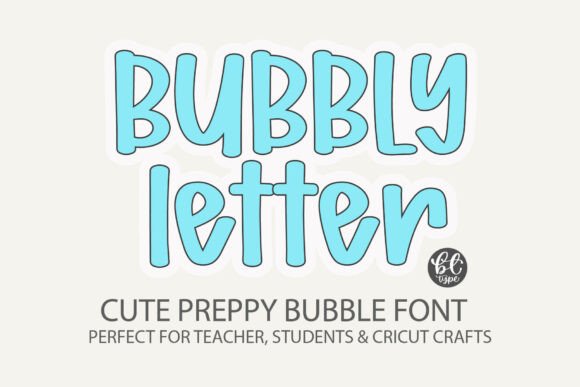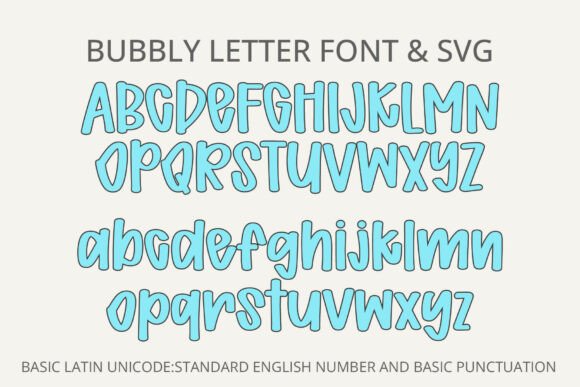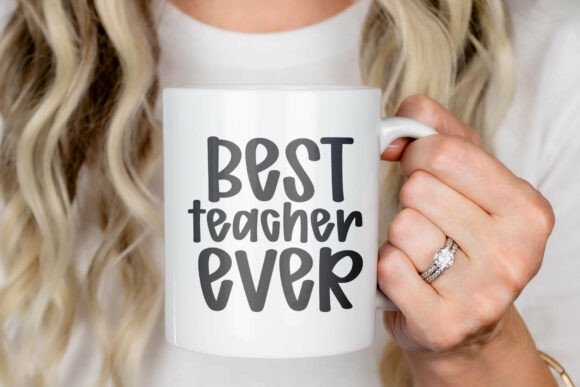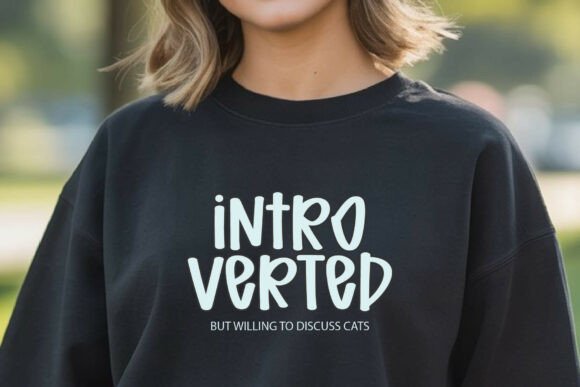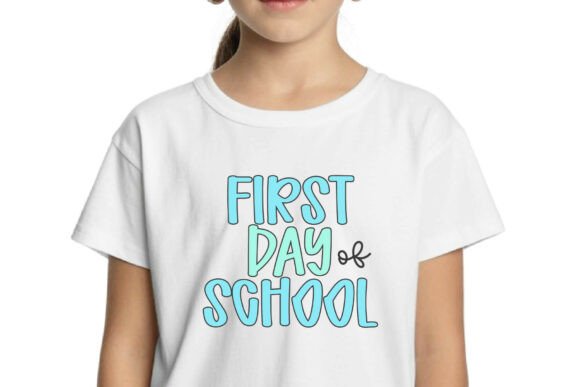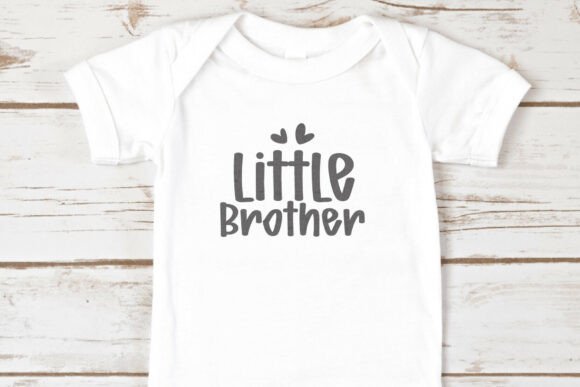
Bubbly Letter Font
๐Ÿ’š Bubbly Letter is a cute preppy bubble font designed to bring joy and playfulness to every project. With its bold handwritten style, itโ€™s perfect for teachers, students, and anyone who loves fun, creative lettering.
๐Ÿ’š Perfect for:
โœ” Teacher font & School projects โ€“ classroom posters, worksheets, and educational printables
โœ” Cute doodle quotes & Lovely designs โ€“ stickers, planners, and journals
โœ” Procreate & Canva projects โ€“ digital lettering, social media, and templates